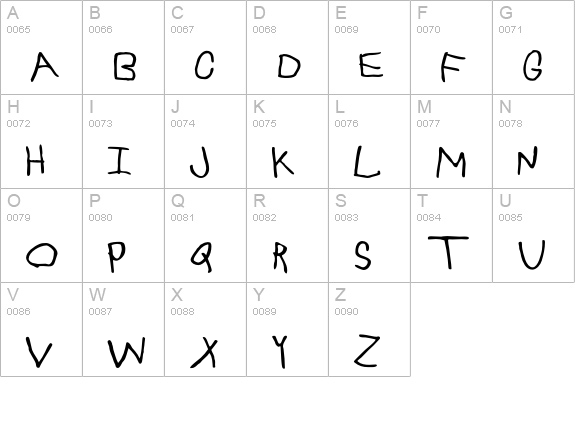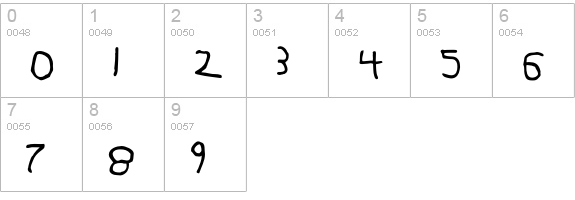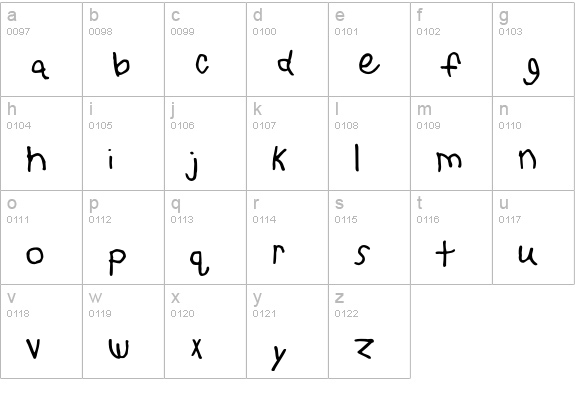
ChildsPlayRegular Font Details
ChildsPlayRegular is a charming and playful font that captures the essence of childhood innocence and fun. With its whimsical and friendly appearance, this font is perfect for adding a touch of joy to your designs. Whether you're creating invitations, posters, or greeting cards, ChildsPlayRegular will bring a sense of warmth and nostalgia to your projects. Best of all, ChildsPlayRegular is available for free download at FontsMarket.com. So go ahead and unleash your creativity with this delightful font that will surely bring a smile to your face and to those who see your work.